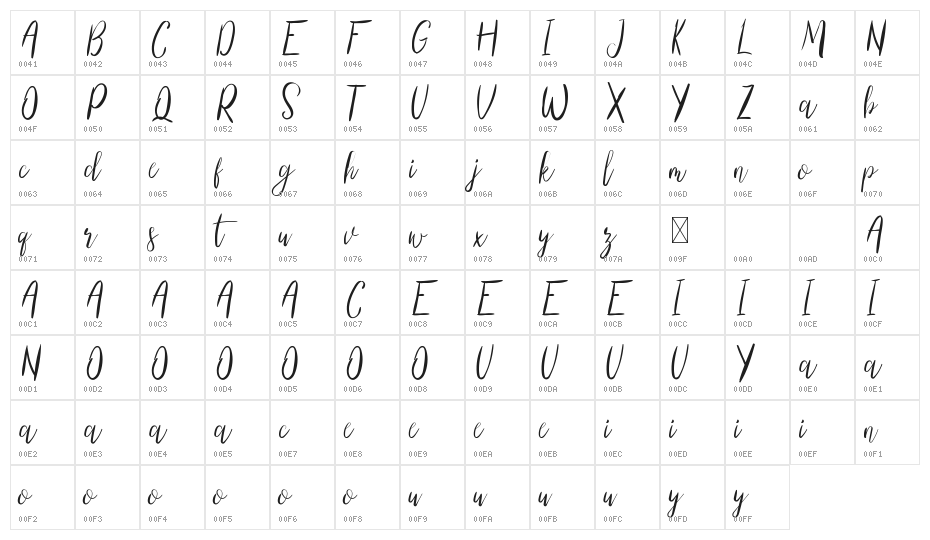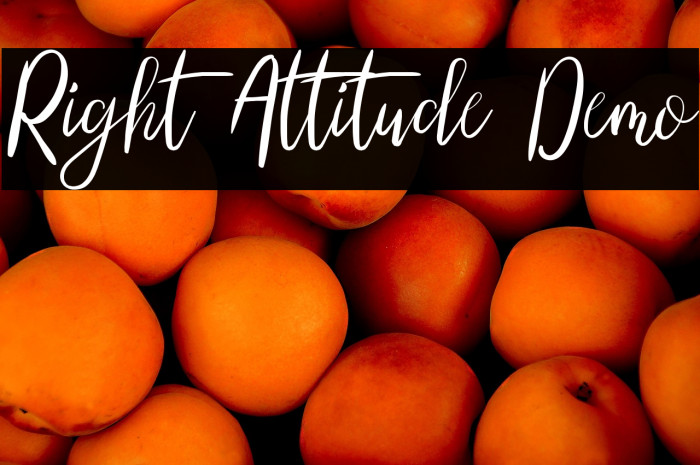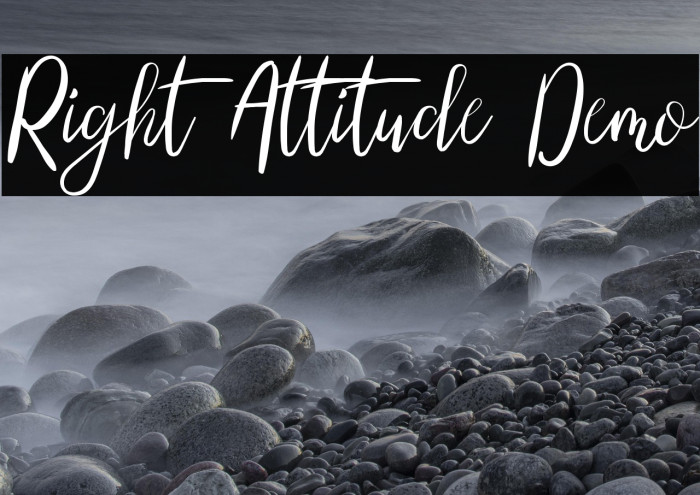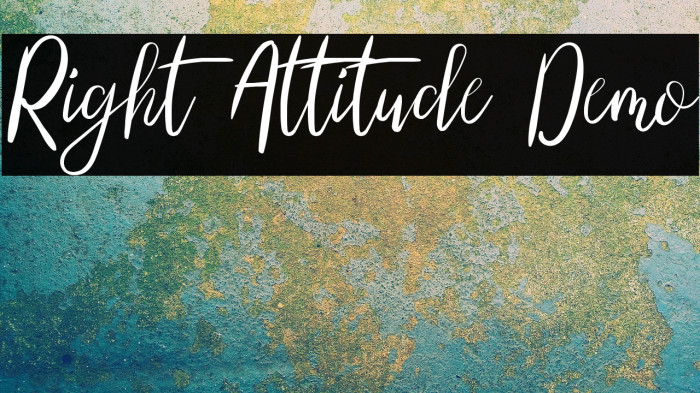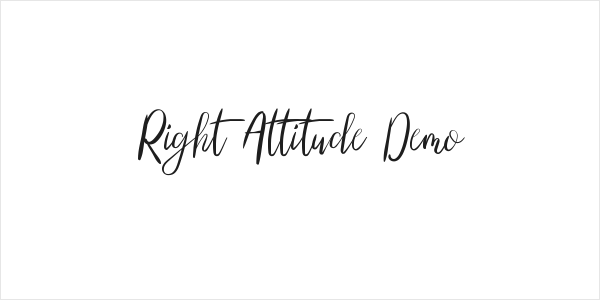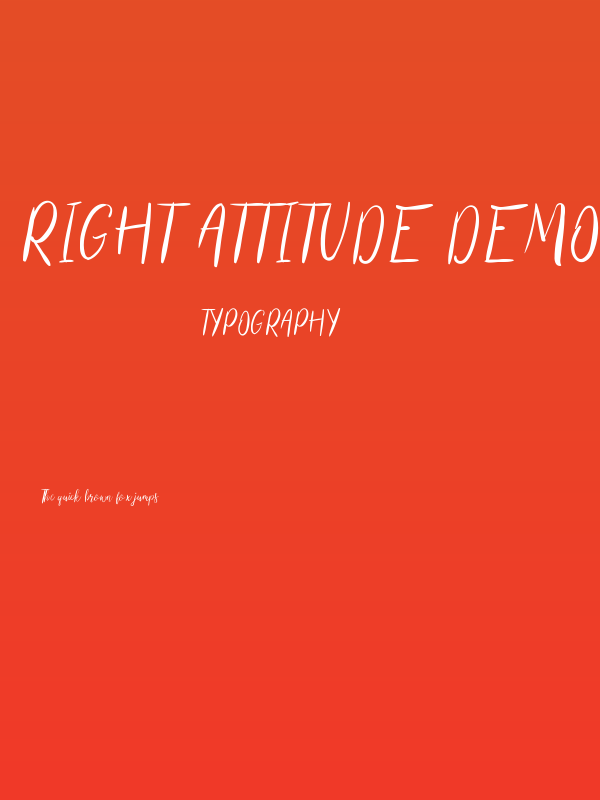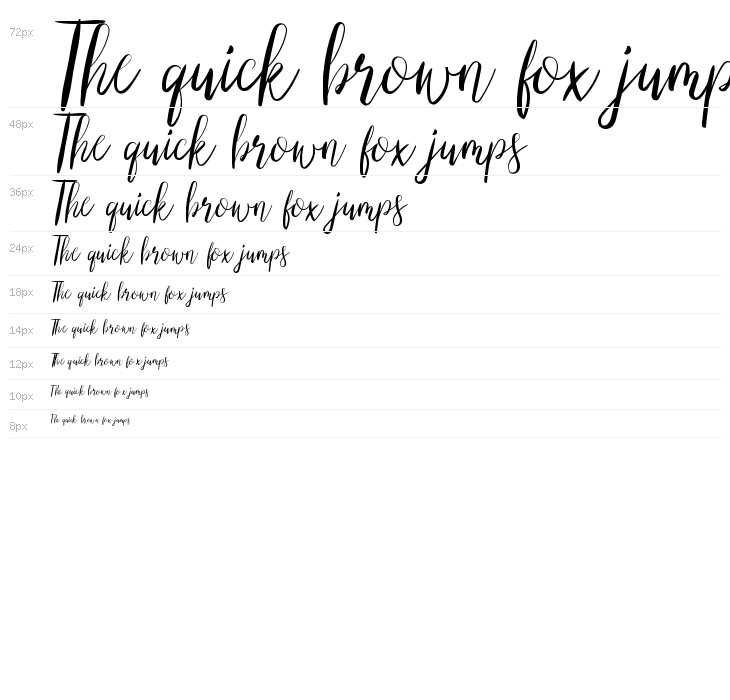
Right Attitude Demo Font
Right Attitude Demo Description
This font features a dynamic and expressive style, characterized by its fluid and cursive strokes. The uppercase letters are tall and slender, with a slight slant that adds a sense of movement and elegance. The lowercase letters are more varied, with some characters exhibiting loops and flourishes that enhance the handwritten feel. The overall appearance is both artistic and modern, making it suitable for creative projects. The font maintains a consistent stroke width, providing a balanced and harmonious look. Special characters are integrated seamlessly, maintaining the font's unique style.